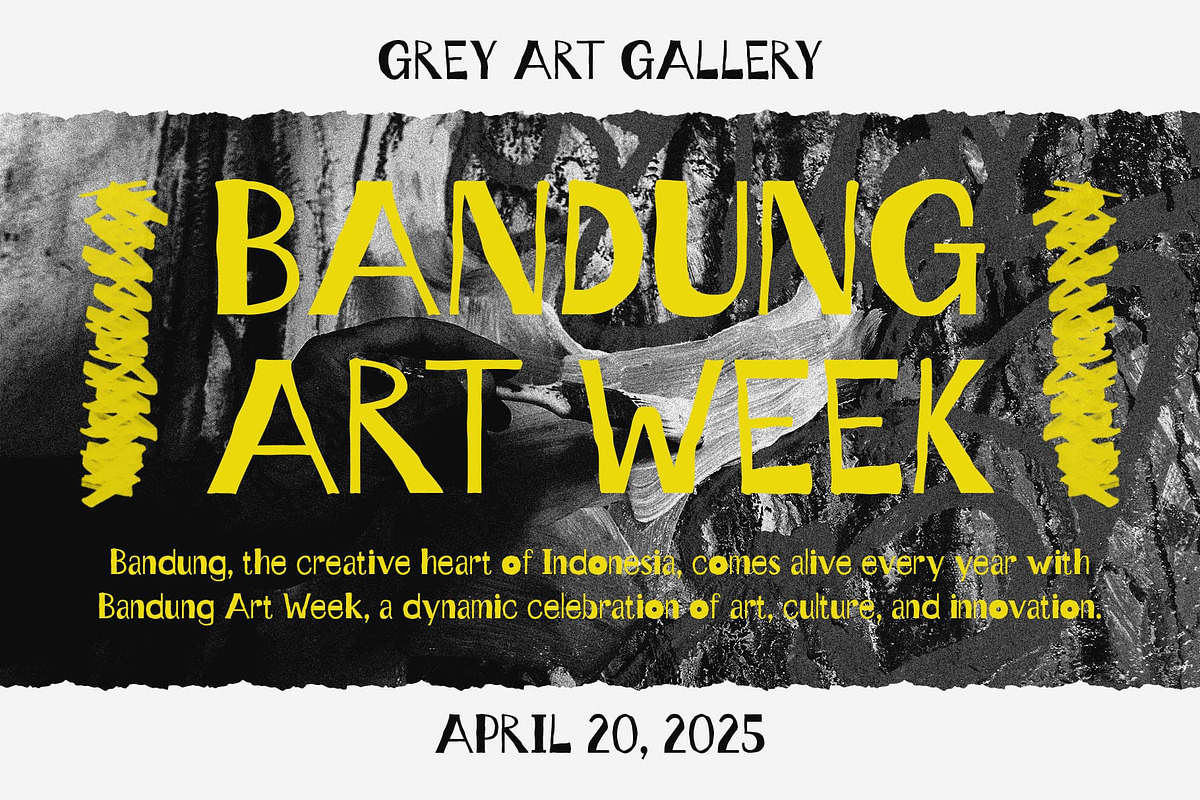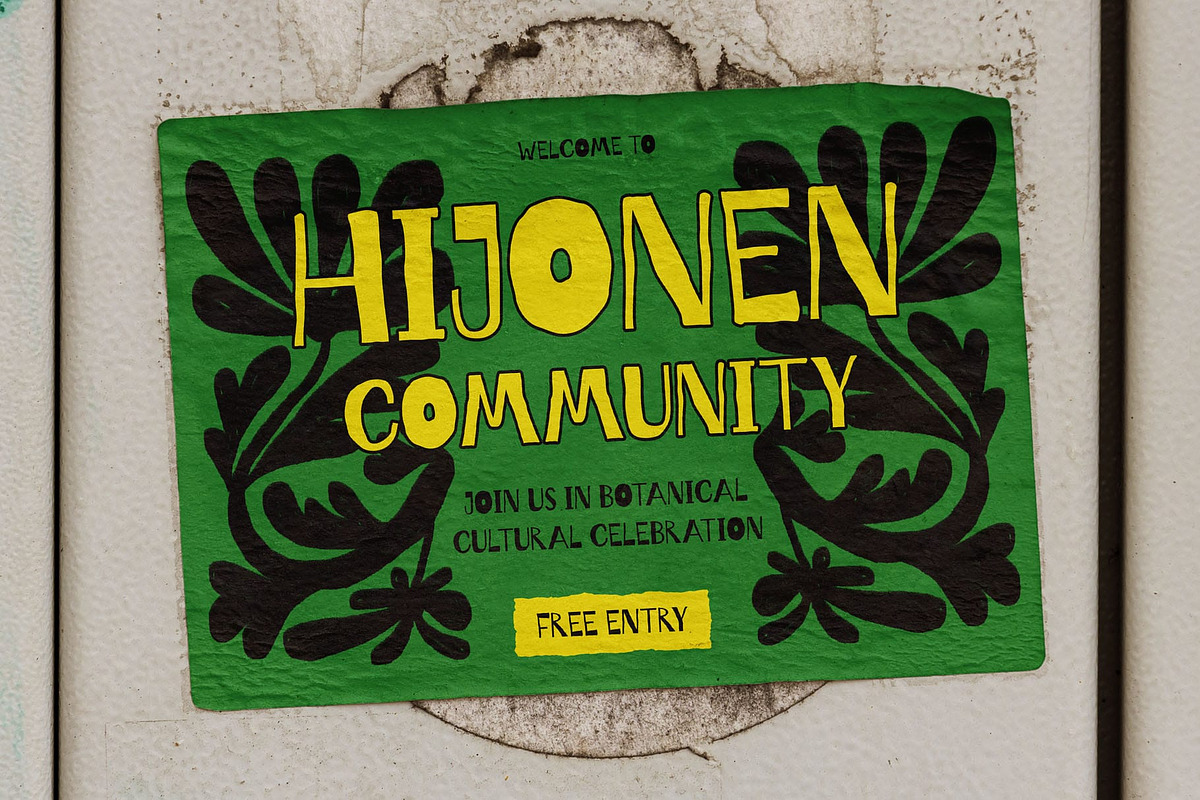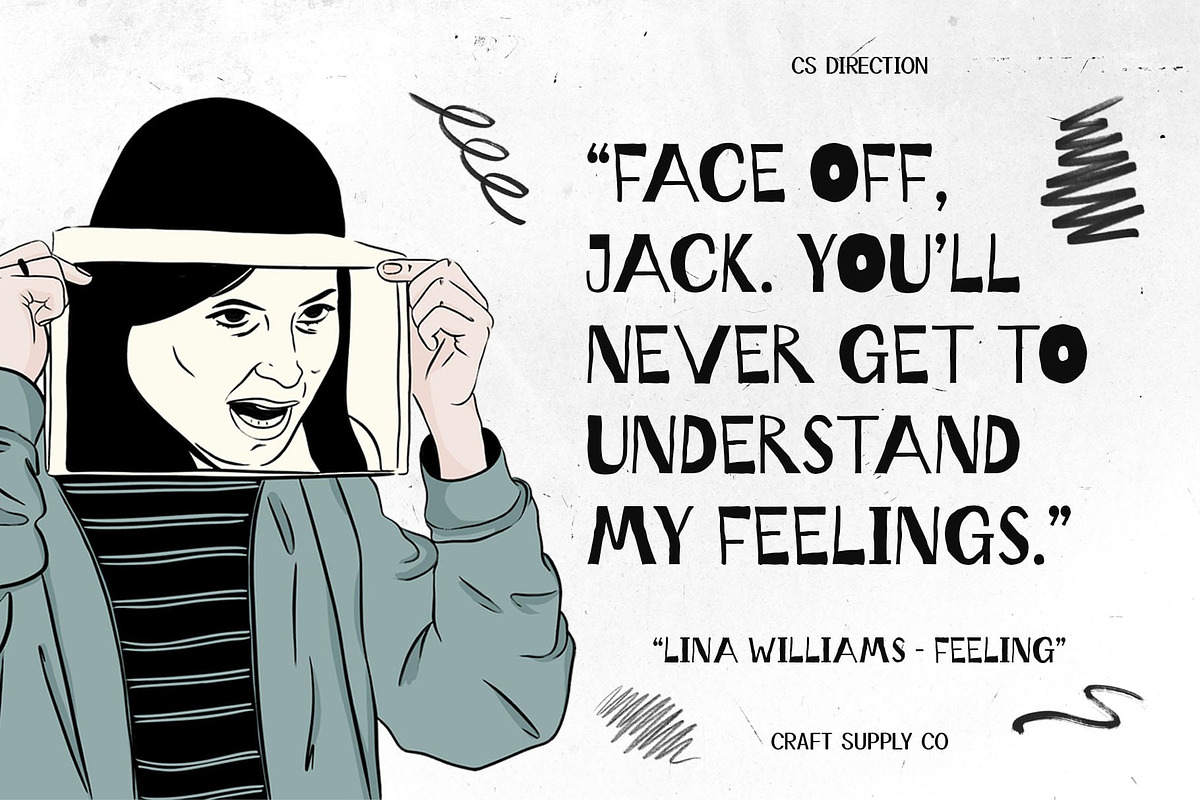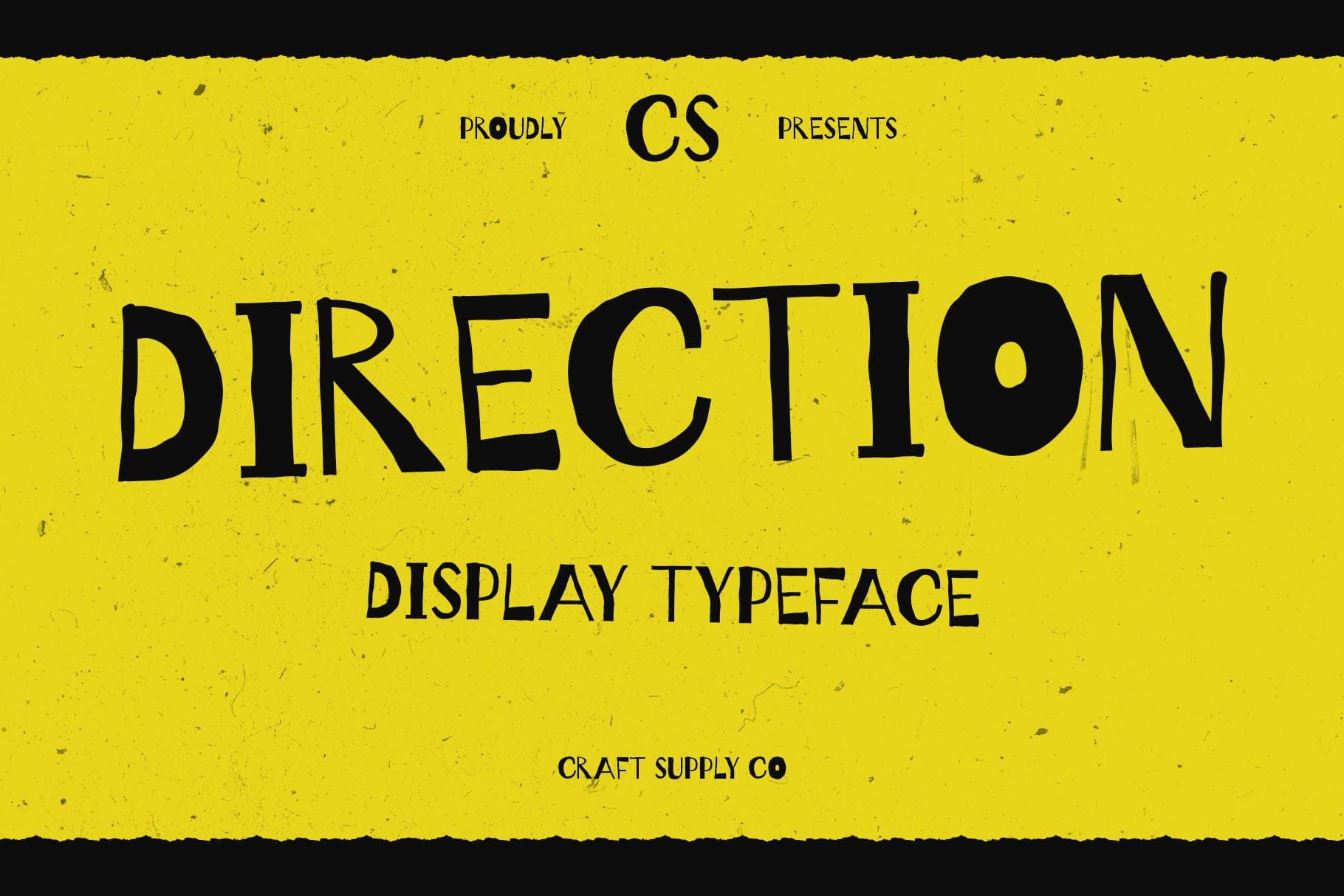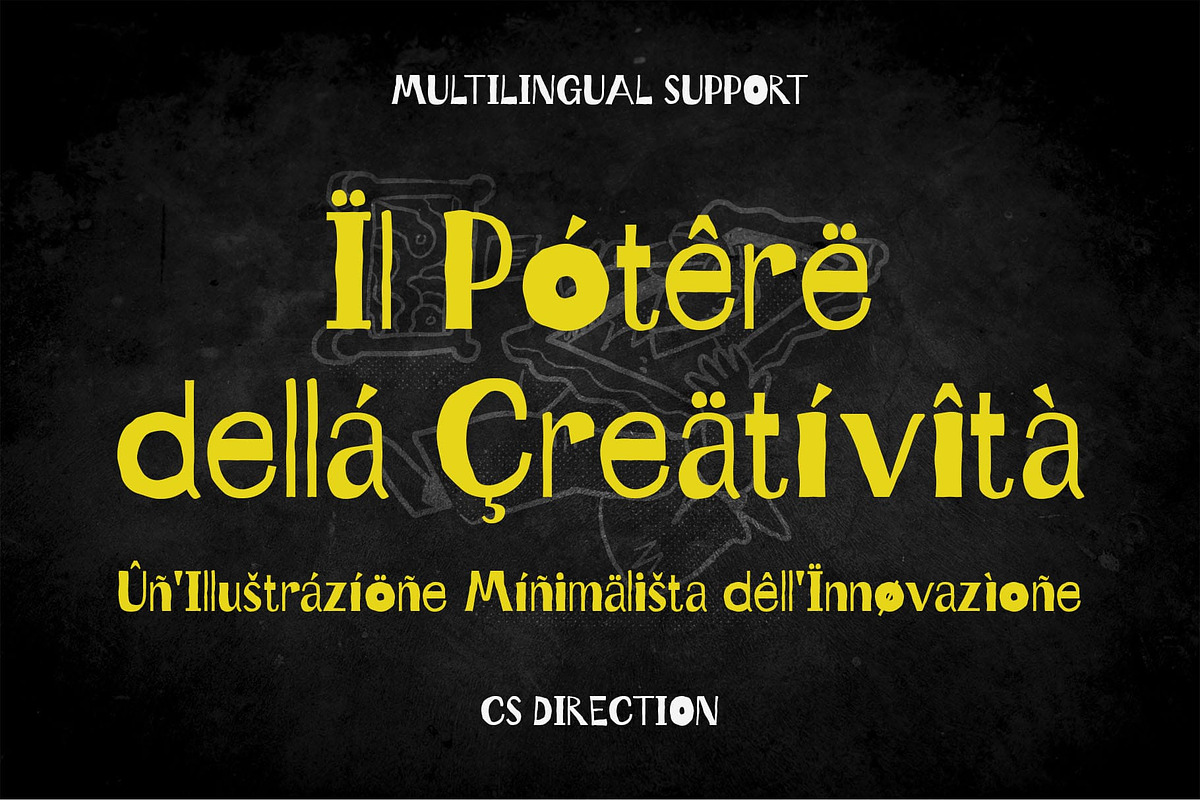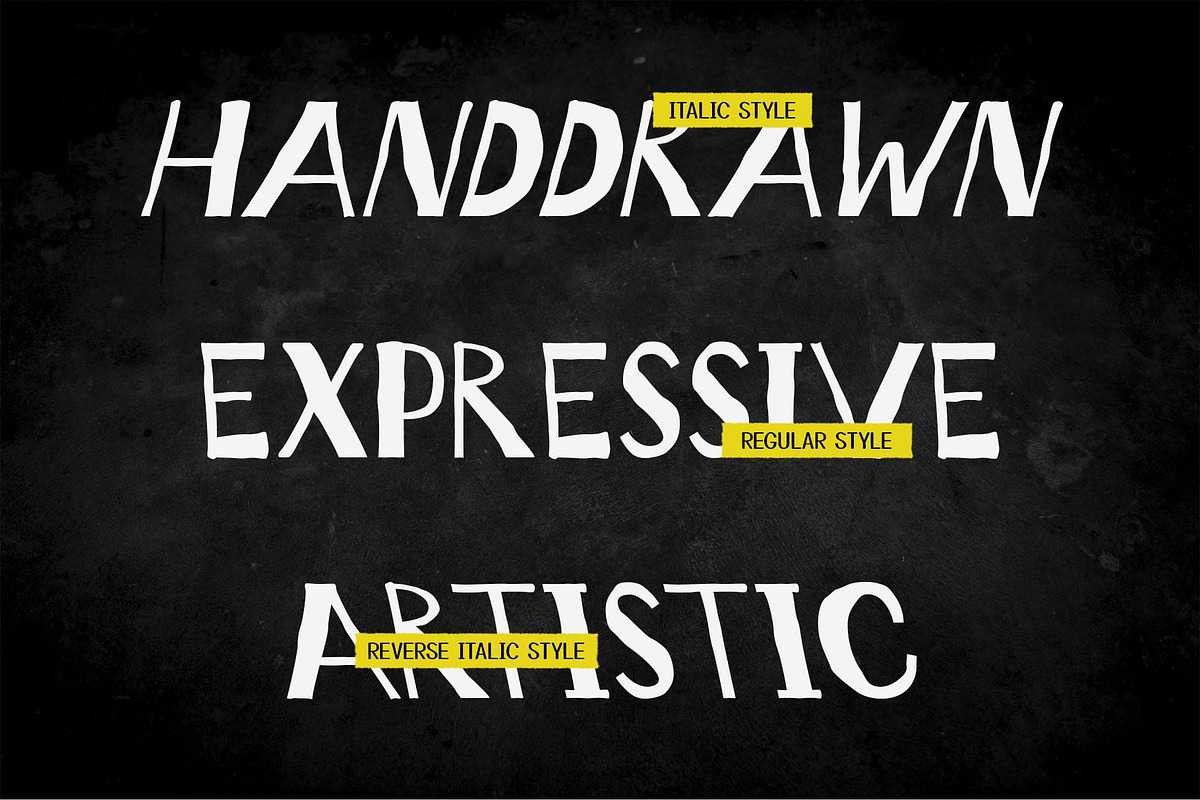
CS Direction – Etchy Font
CS Direction – Etchy Font: Raw Texture with a Bold Personality
Expressive Display Font with an Etchy Style CS Direction is a unique display font featuring an etchy, rough-hewn texture that captures the essence of hand-drawn artistry. With uneven edges and dynamic, sketch-like strokes, it creates a raw, spontaneous, and organic feel. The varying thickness in its letterforms adds an element of imperfect charm, making it a standout choice for designs that demand a bold and unconventional look.
A Retro Funky Aesthetic with Distressed Details This font channels retro-inspired energy with its distressed and scratched edges, reminiscent of vintage print textures and hand-etched signage. The slightly erratic yet structured forms give off a funky, nostalgic vibe, making it perfect for posters, album covers, streetwear branding, and rebellious editorial designs. The imperfect lines and raw textures bring an expressive, lived-in quality to any project.
Ideal for Bold, Artistic, and Experimental Designs CS Direction thrives in creative projects that aim to break conventions. Whether you’re crafting gritty typographic posters, alternative branding, or expressive DIY-style graphics, this font adds character, energy, and an unmistakable edge. It’s particularly well-suited for music, fashion, urban branding, and artistic visuals that require a rebellious yet refined touch.